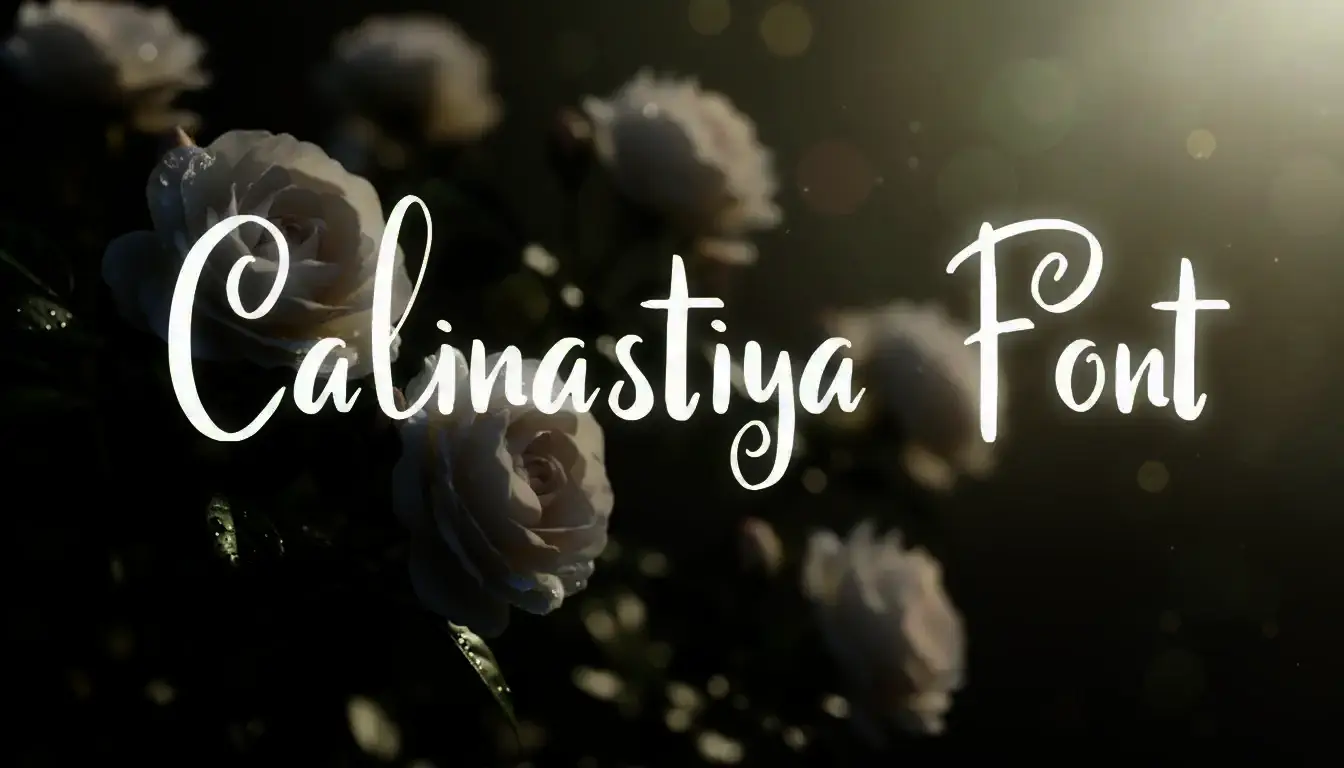
Calinastiya Font
Calinastiya
Calinastiya is a fancy font created by Patria Ari Wijonarko and released through Patria Ari Typestudio. Bold and full of character, it's built to stand out rather than blend in. You can download it for free and test it with your own words in the preview above.
What You Can Type With Calinastiya
Calinastiya has the full alphabet in upper and lowercase. There are no numbers, so you'll need a second font for dates, prices or phone numbers. Punctuation is limited, so look at the character map if you need a specific symbol. It also has the accented letters you need for Spanish, French, Portuguese and Italian.
Where Calinastiya Works Best
Designers usually reach for fonts like Calinastiya when they're making posters, logos and eye-catching headlines. Use it for one standout word or headline and let simpler fonts handle the rest.
Does Calinastiya support accented letters?
Yes. Calinastiya includes the accented letters needed for Spanish, French, Portuguese and Italian, so it works for more than just English.